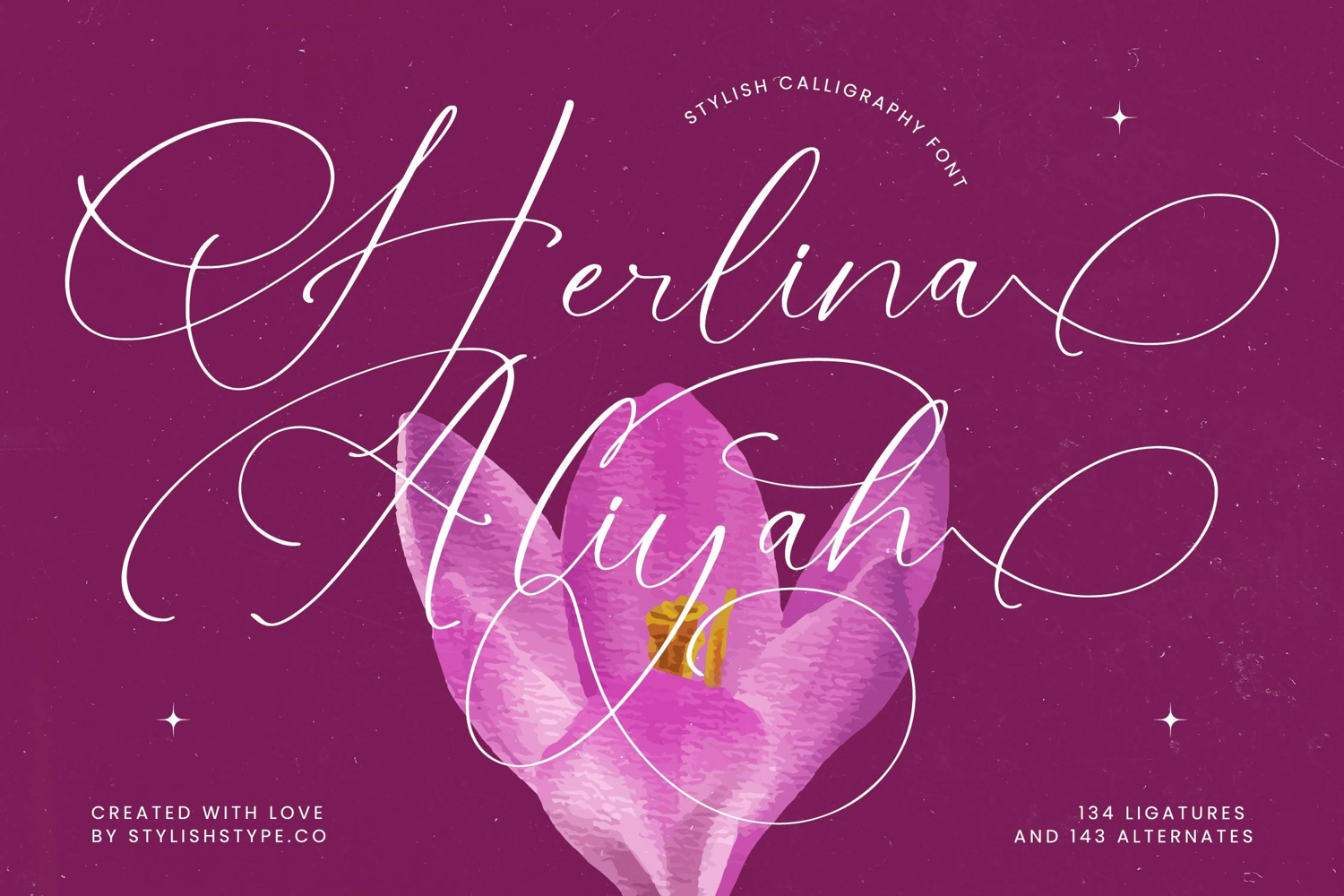
Herlina Aliyah - Stylish Calligraphy Font
Elevate your creative vision with the ethereal beauty of **Herlina Aliyah**, a typeface designed to weave romance into every digital stroke. This script captures the essence of sophisticated femininity with its delicate lines and sweeping, expressive flourishes.
Inspired by the timeless art of hand-penned correspondence and the organic grace of spring blooms, this typeface brings an air of poetic motion to the canvas. It evokes a world of high-end stationery and whispered secrets written in the finest ink on textured paper.
While it dances with the fluidity of a script, it commands the same **branding impact** and **luxury typography** standards found in a **modern serif display**. It offers a high-end alternative to a **high-contrast serif**, providing an **editorial font** feel that is both intimate and grandly cinematic.
Staying ahead of the **modern serif trend**, this typeface bridges the gap between classic copperplate calligraphy and **editorial display fonts**. It is the ultimate choice for designers seeking **character-driven typography** that breaks away from static layouts to create a sense of bespoke craftsmanship.
This versatile script is the perfect centerpiece for a high-end **logo design** or a complete luxury **branding** suite. Its romantic nature makes it indispensable for **wedding** invitations, while its sophisticated rhythm lends itself beautifully to **fashion** spreads, premium **packaging**, and high-impact **editorial** layouts.
To ensure maximum versatility, the package includes over 134 **ligatures** and more than 143 **alternates** to customize every letterform. It also features decorative **swashes**, comprehensive **multilingual** support, and a full set of **international characters** for a truly global design reach.